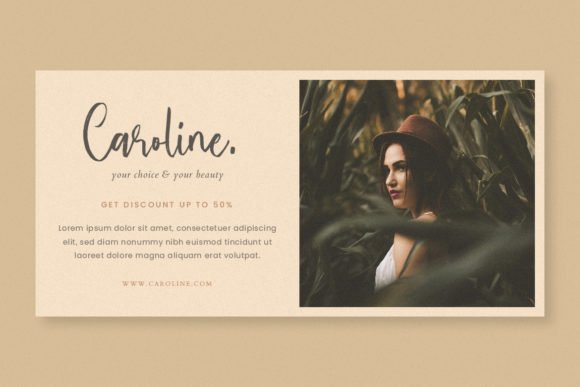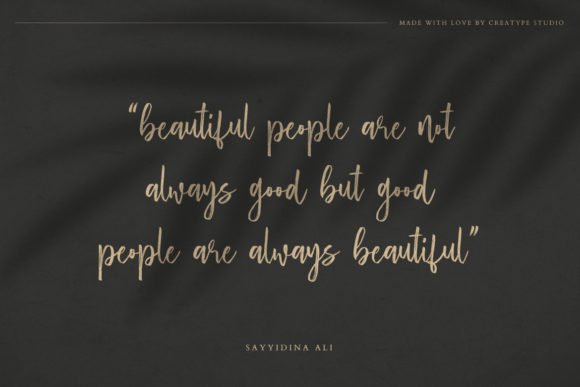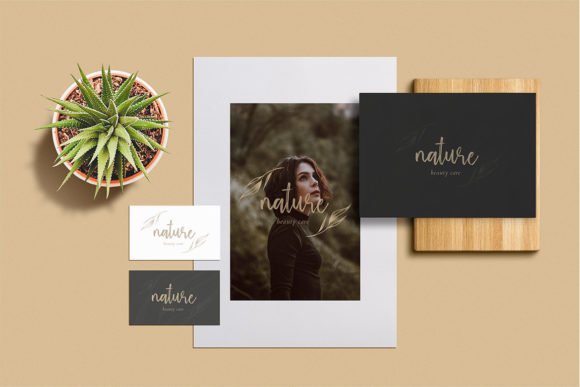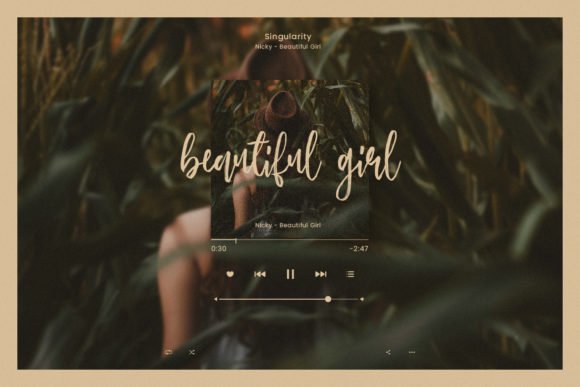
Westlynn Font
Westlynn is a lovely and timeless brushed handwritten font. It is the best choice for creating eye catching logos, branding and quotes. Westlynn is PUA encoded which means you can access all of the glyphs and swashes with ease!